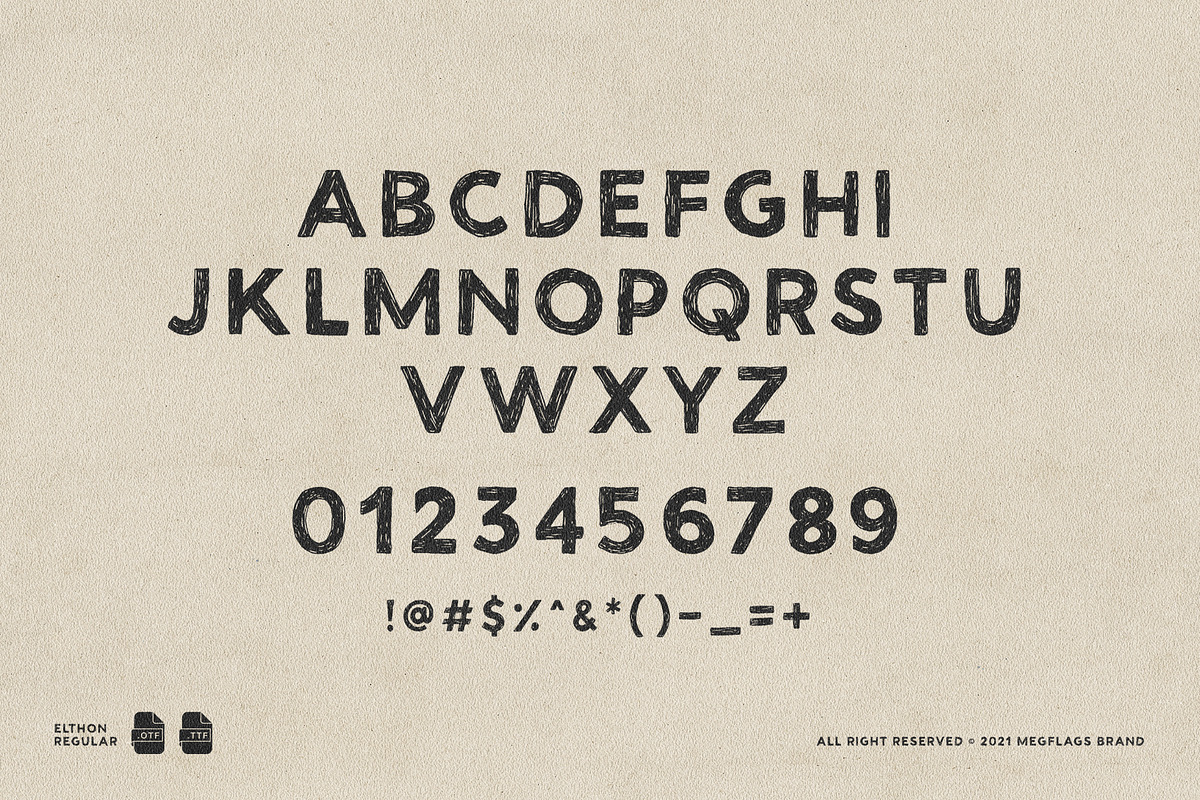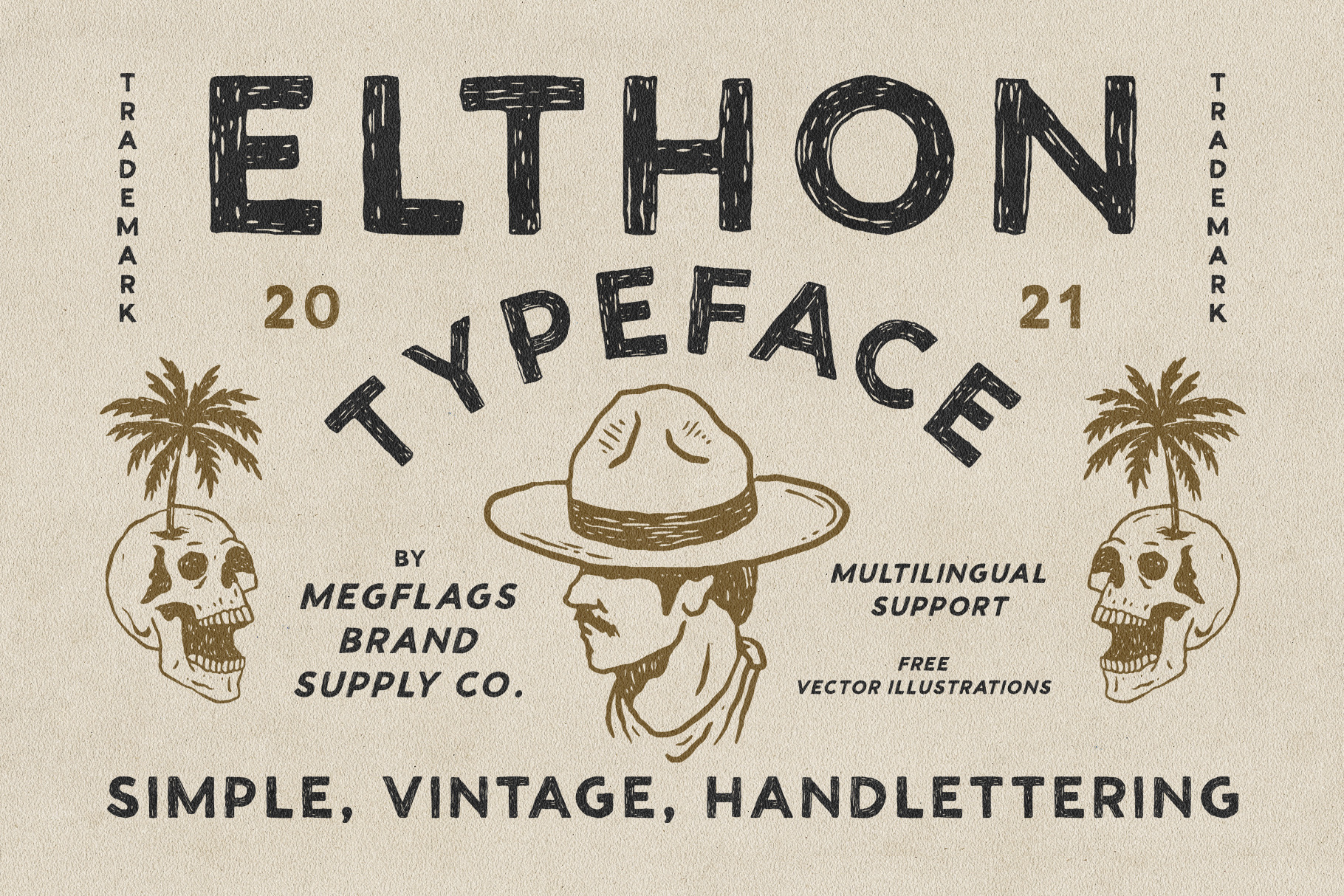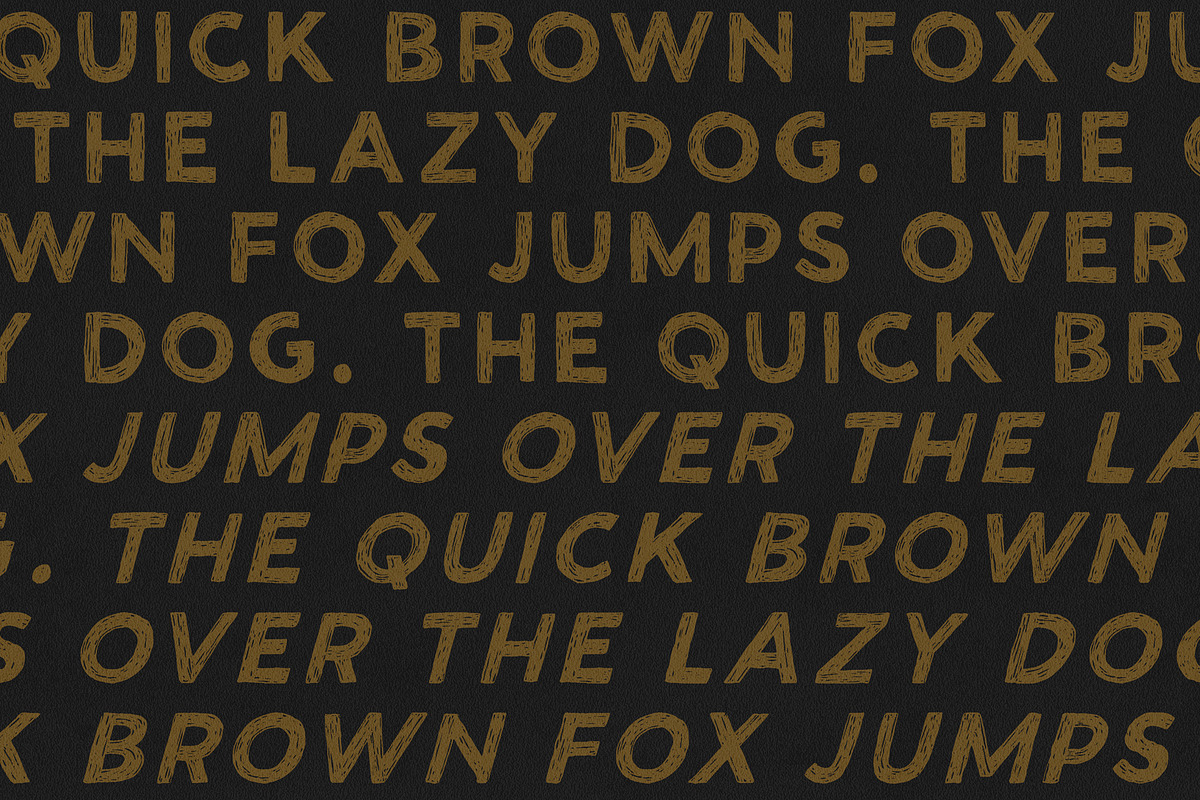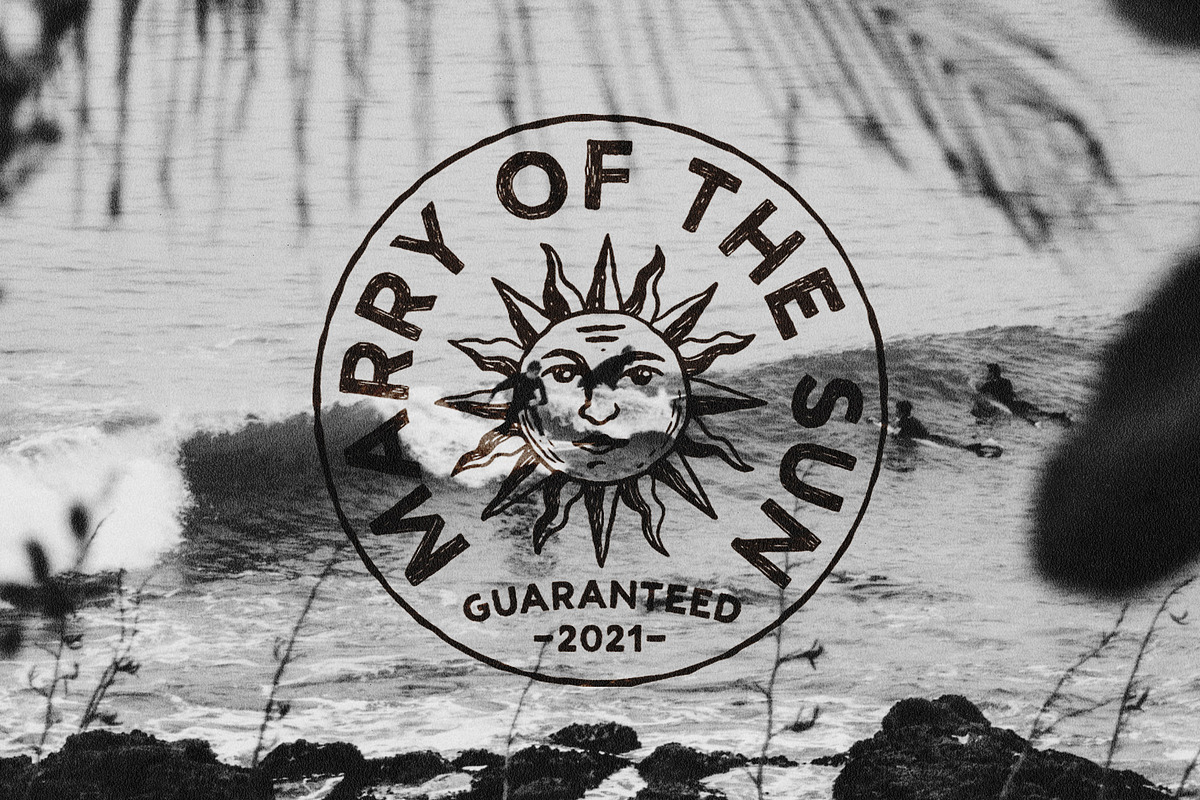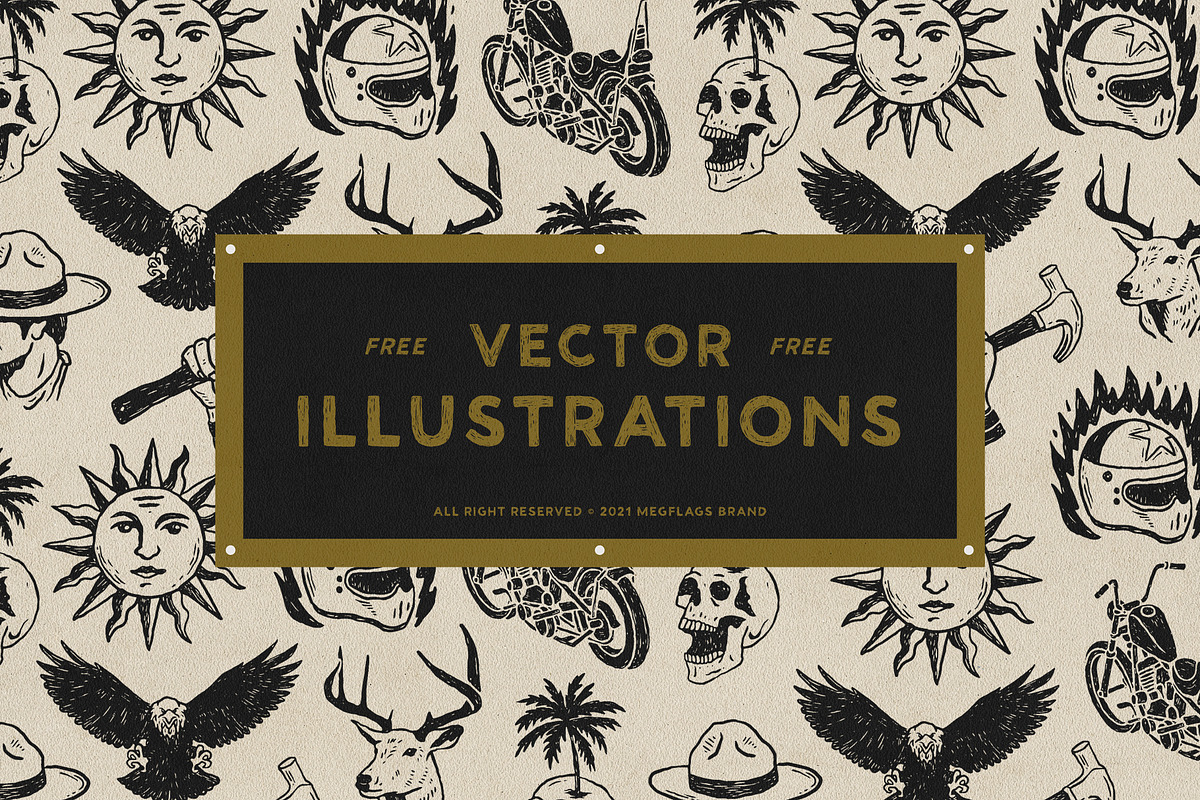
Elthon Typeface
Introducing Elthon Typeface
Elthon is vintage handdrawn typeface inspired by handlettering including regular and oblique versions. Elthon comes with ink textured touch for your every design, really good for your branding, merchandise, posters, etc.